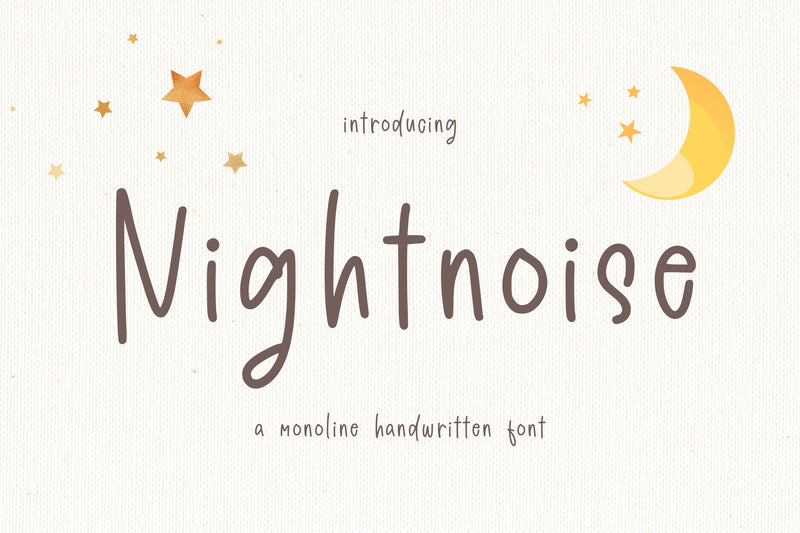
Nightnoise
Proudly Present, Nightnoise
Nightnoise is a Monoline Handwritten Font
Nightnoise is perfect for product packaging, branding project, megazine, social media, wedding, or just used to express words above the background.